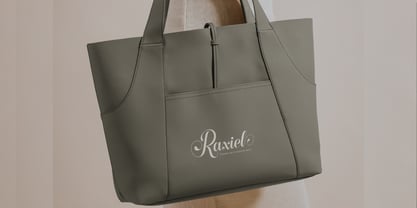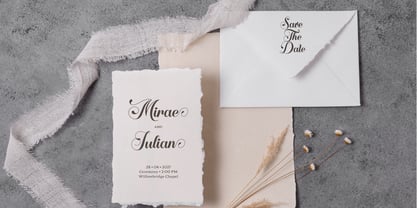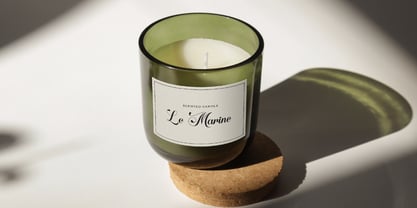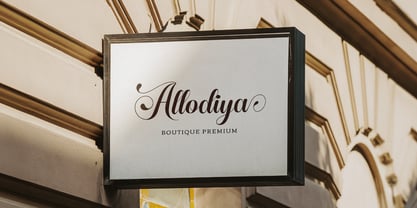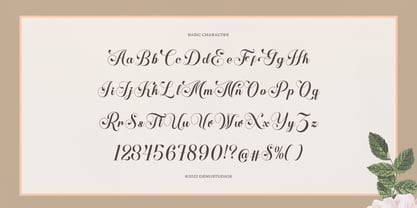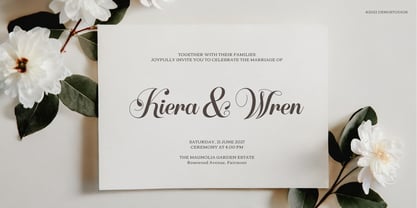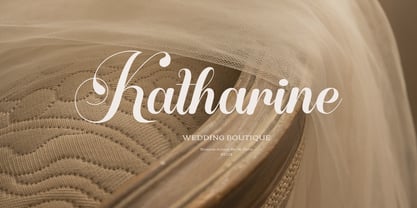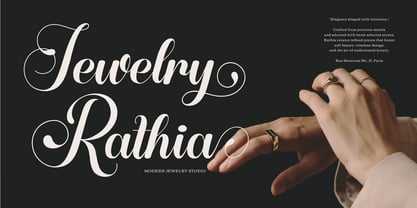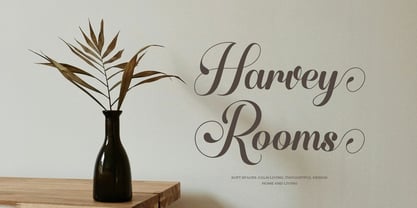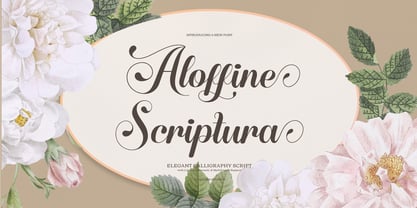
Aloffine Scriptura
by Denustudio
Aloffine Scriptura | Calligraphy Script, from Denustudios, suitable for any projects such as: logos, branding projects, homeware designs, product packaging, mugs, quotes, posters, shopping bags, t-shirts, book covers, name card, invitation cards, greeting cards, label, photography, watermark, special events, and all your other lovely projects that need Script a taste.
Designers: Dede Nugraha
Foundry: Denustudio